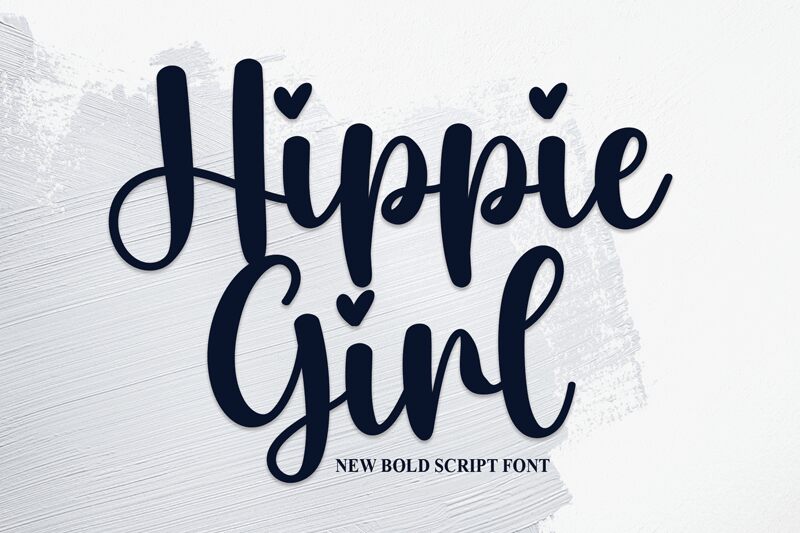
Hippie Girl is a smooth brush semi-bold font designed by scratchones that exudes a carefree and whimsical vibe. This font's Valentine style makes it perfect for various projects such as greeting cards, romantic letters, wedding invitations, and love-themed social media posts. Hippie Girl's fluid strokes and playful curves make it an excellent choice for designs that require a touch of femininity and fun. Whether you're creating posters or designing merchandise, this font will surely add a charming and romantic feel to your project. So why not give Hippie Girl a try?
the latest style letters are perfect for wall displays, wedding invitations, social media post logos, advertisements, product packaging, product designs, labels, photography, watermarks, invitations, stationery, and any project that requires taste handwriting.